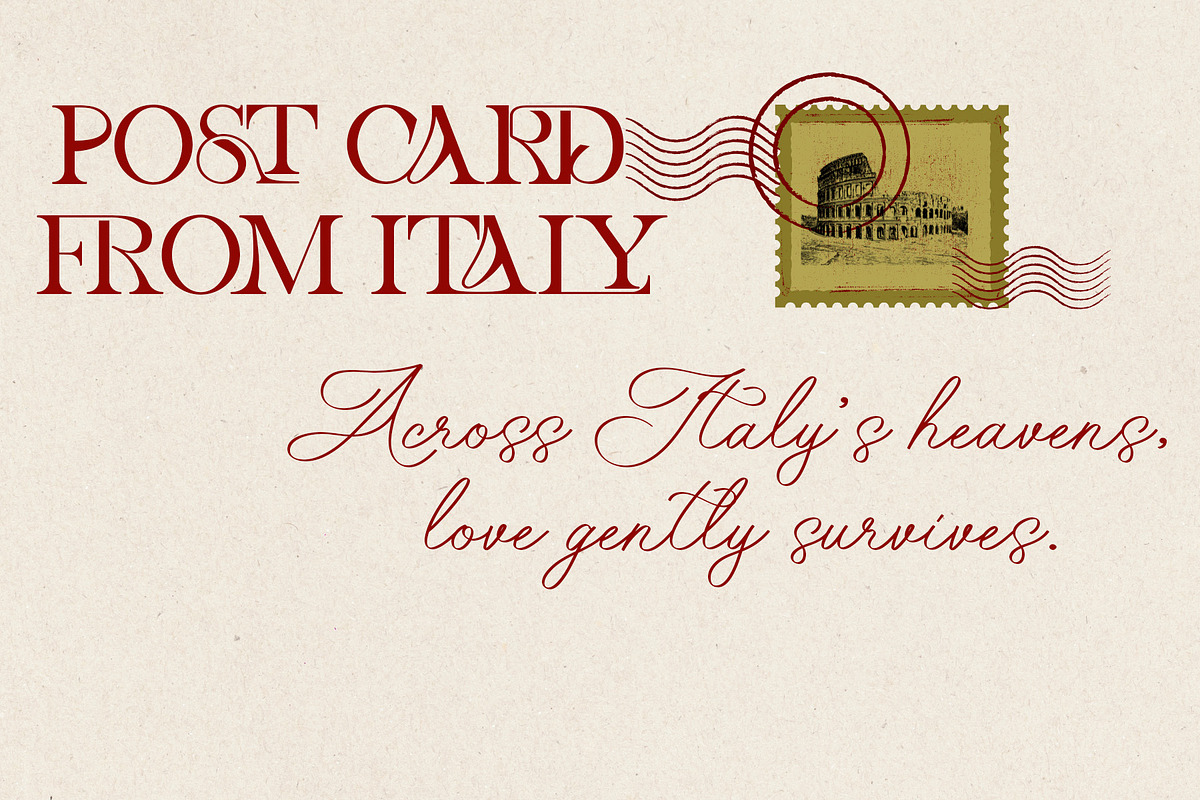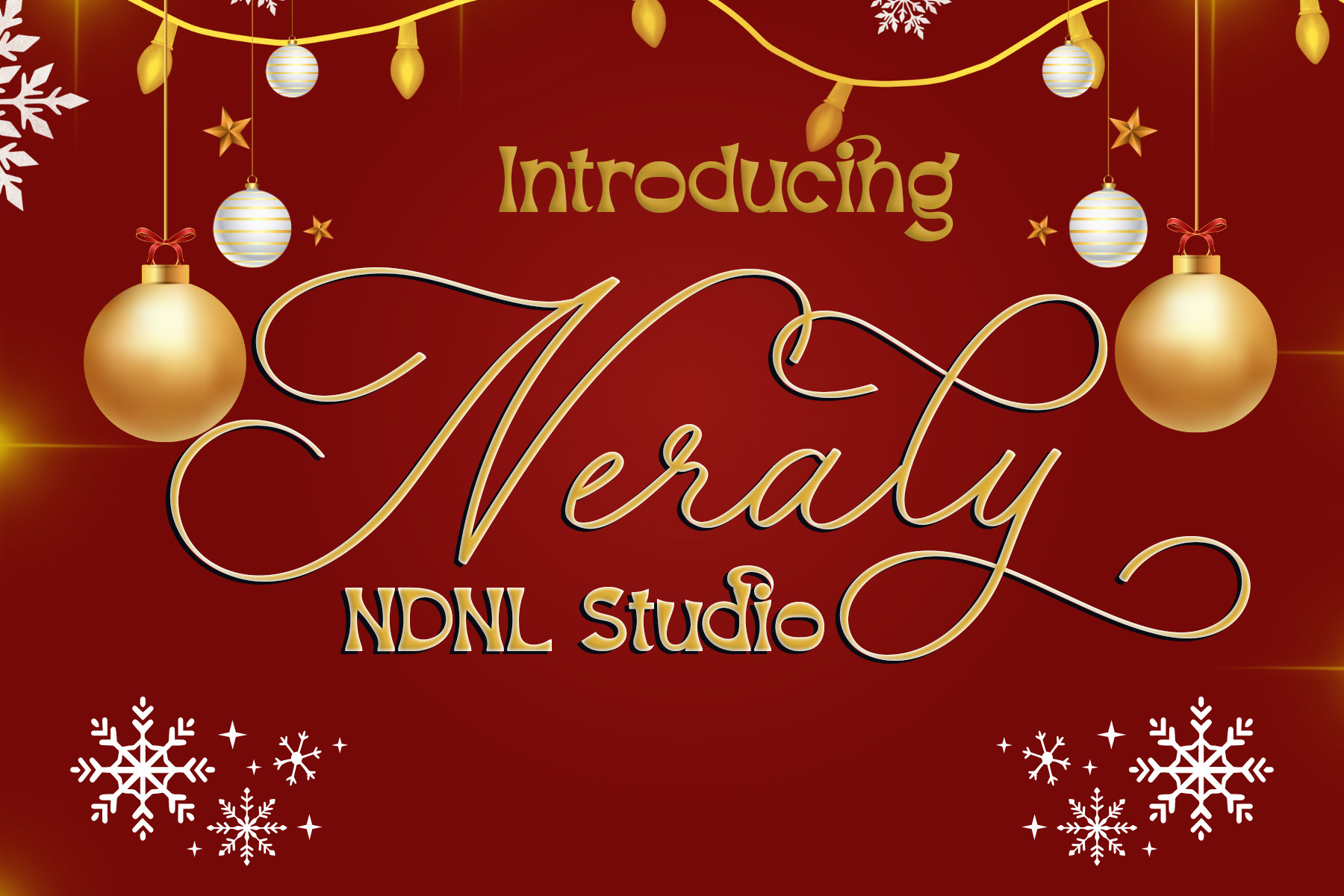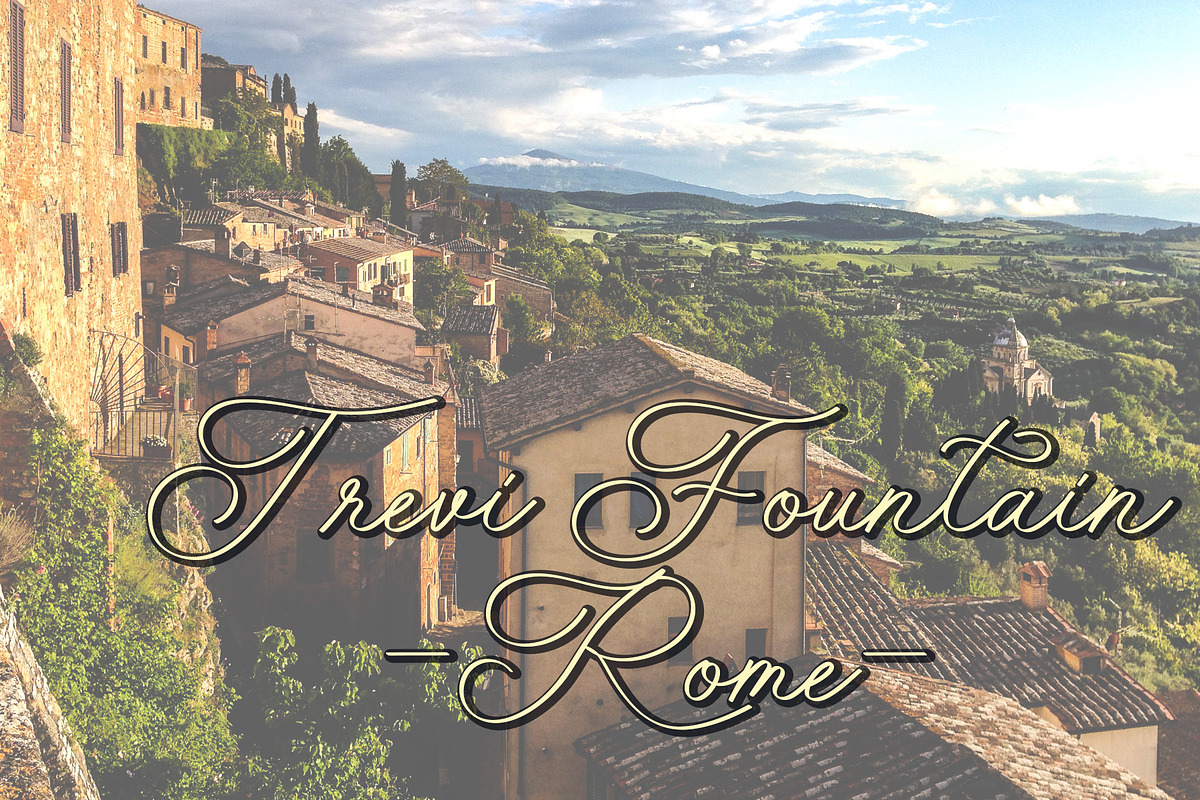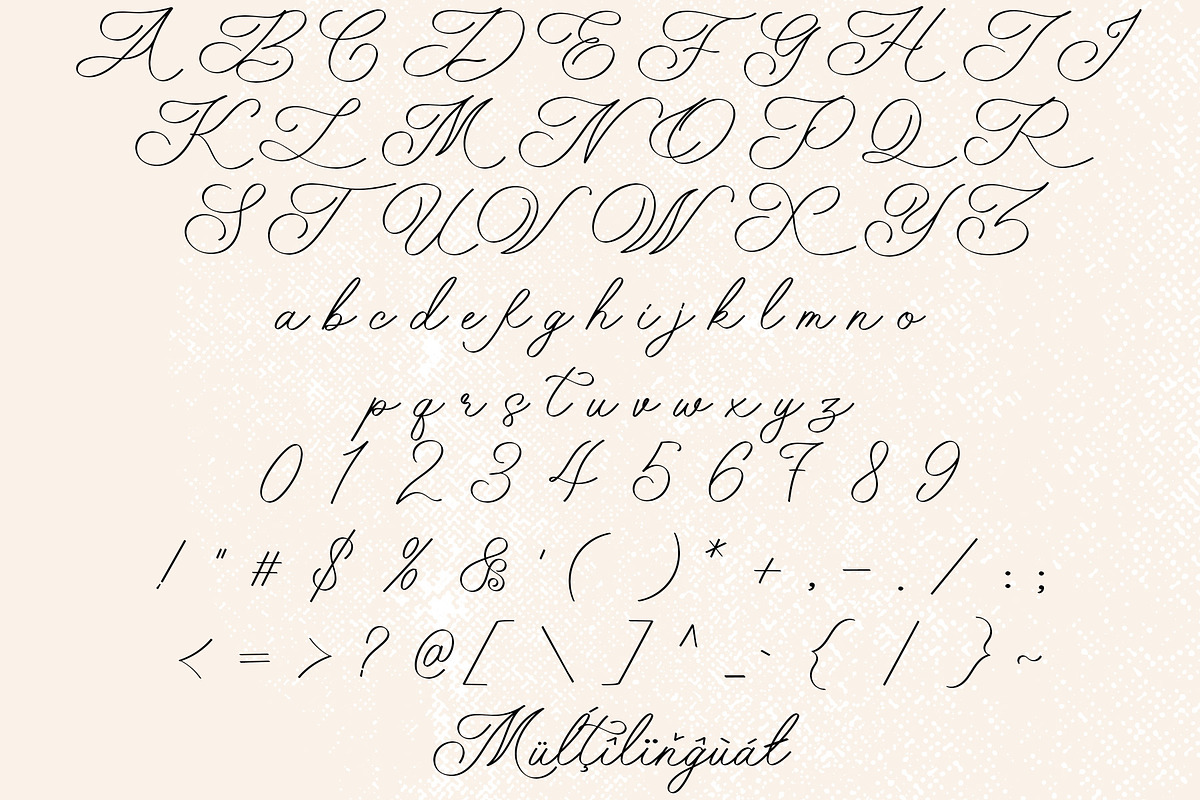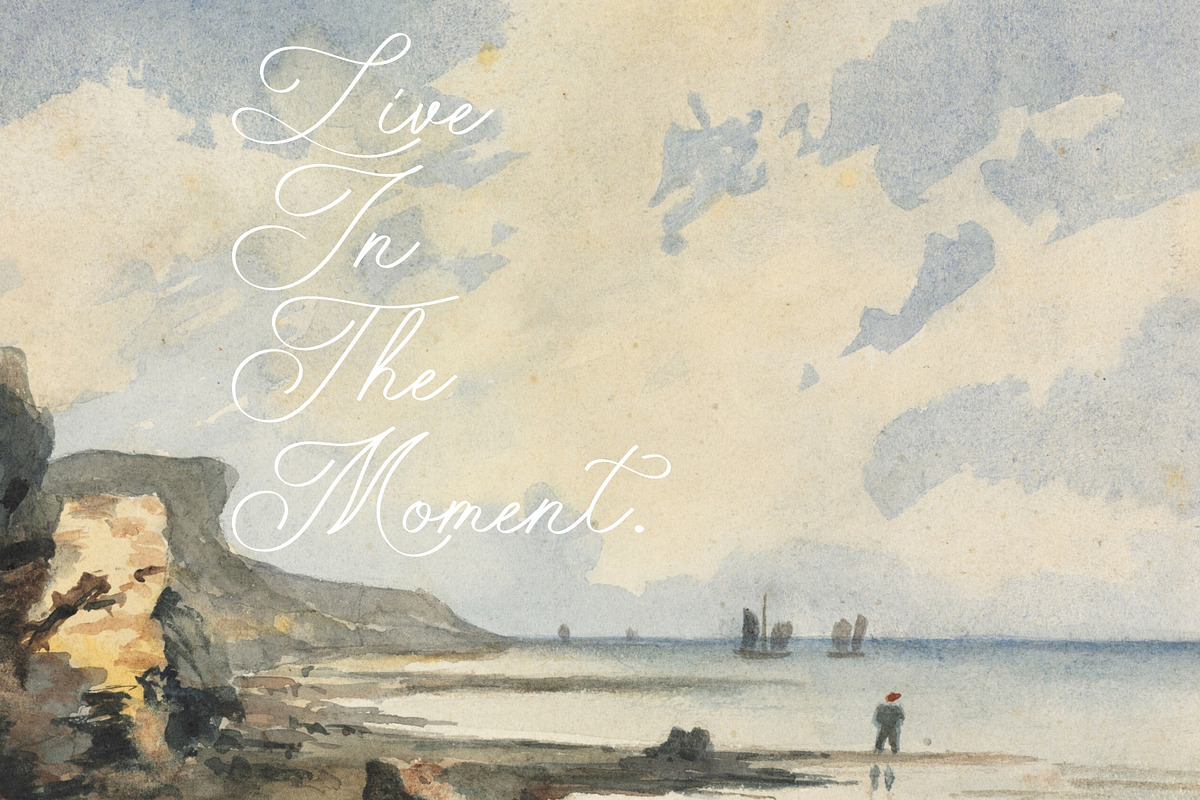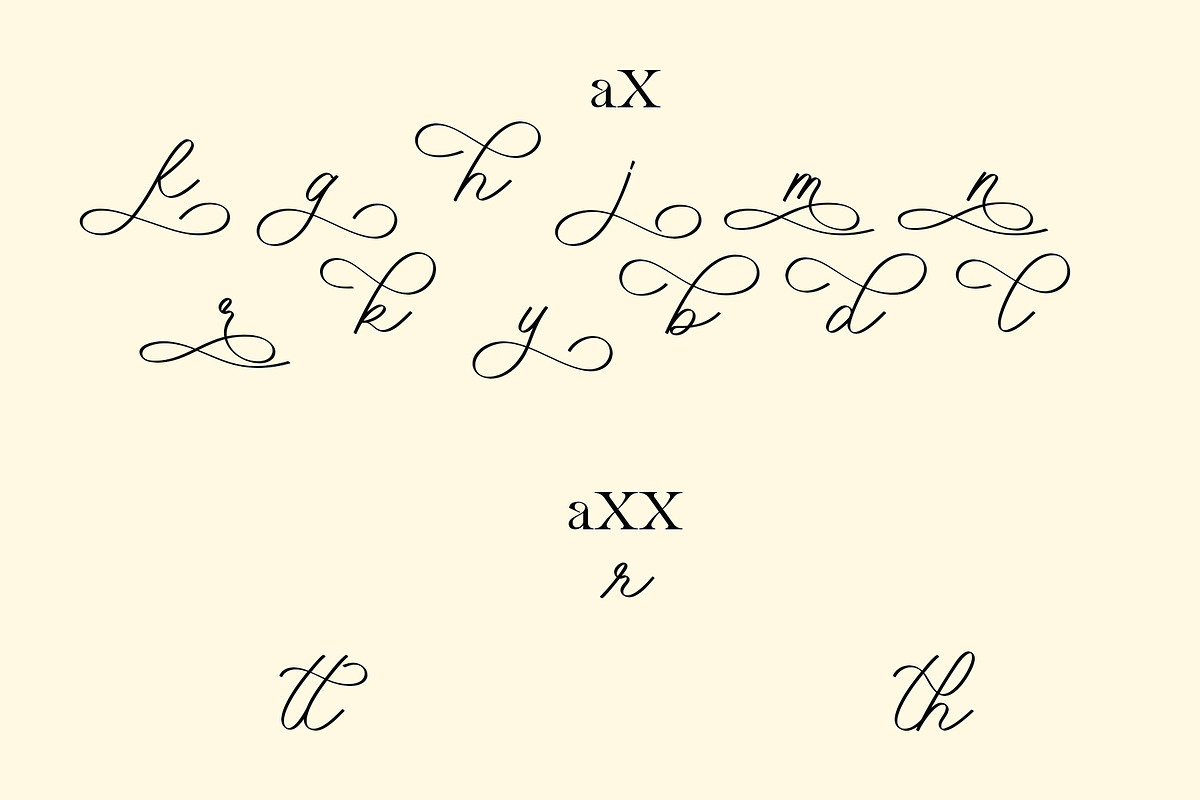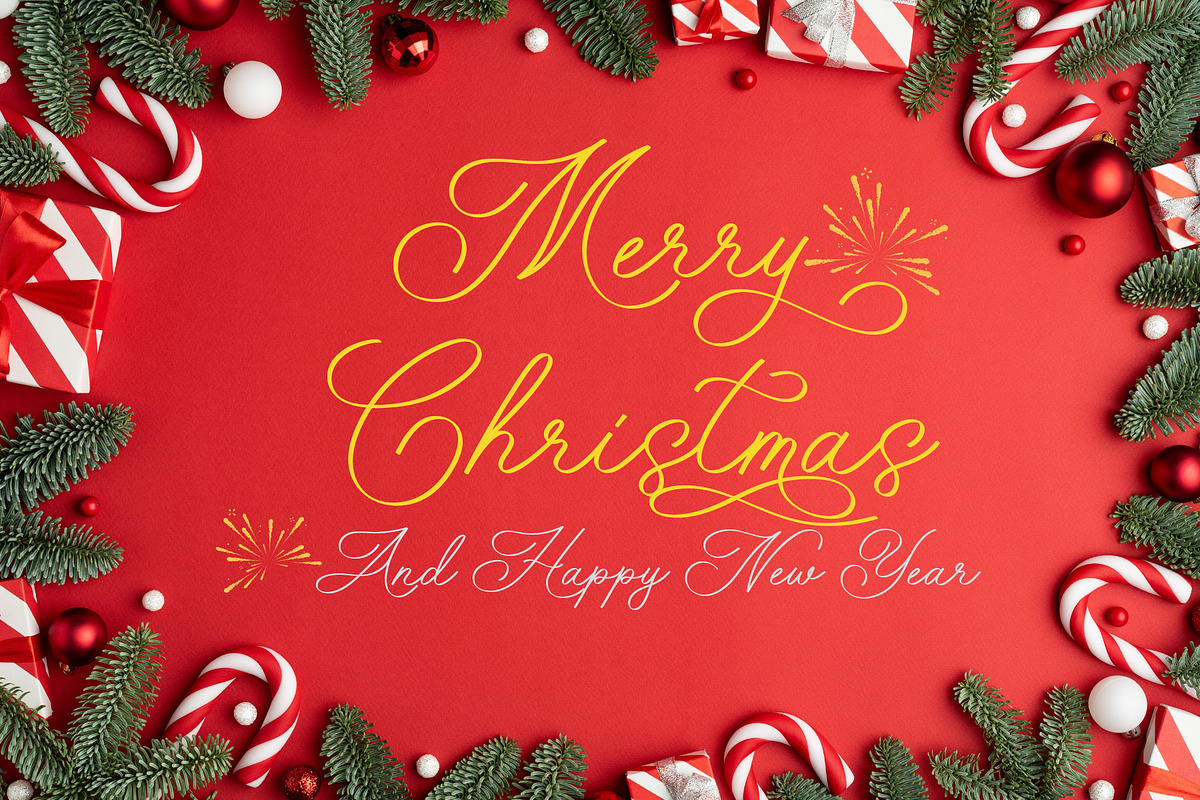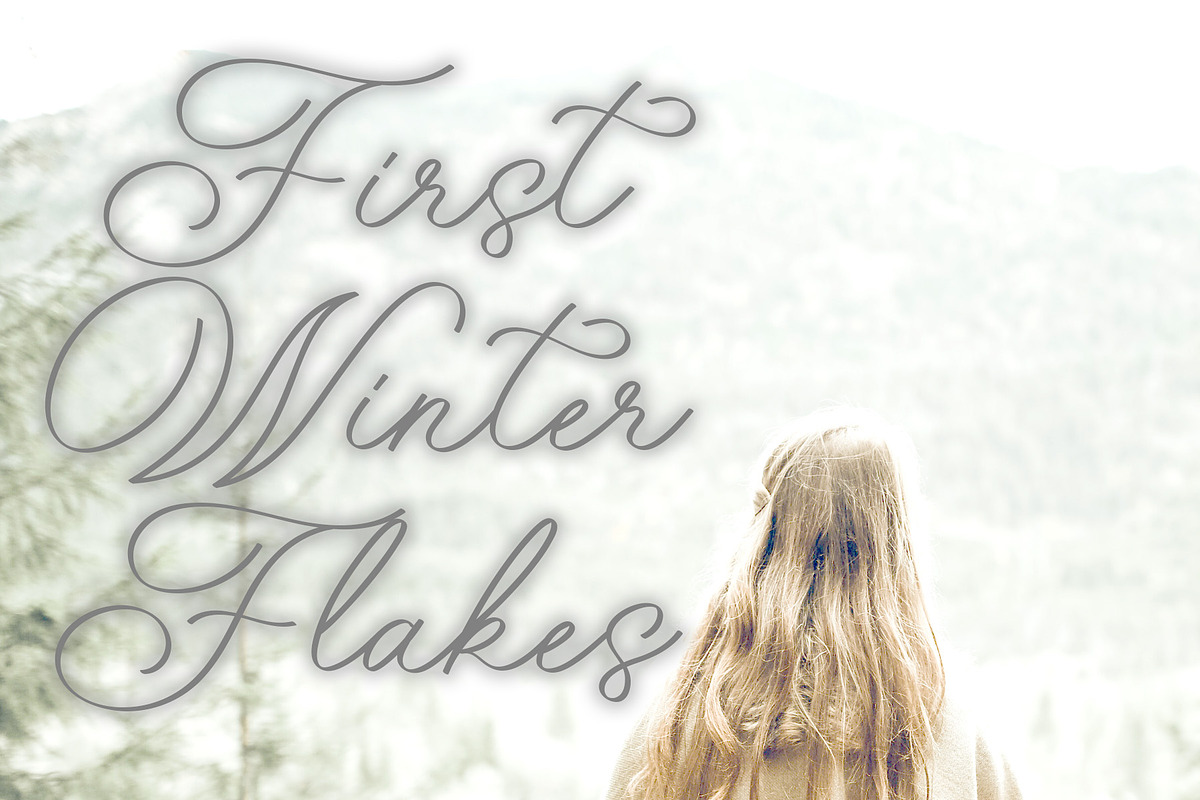
Neraly – Handwritten Font
Introducing Neraly!
Neraly Font is an elegant script typeface with graceful curves and artistic flow, infused with the warm and magical spirit of the holiday season. Inspired by Christmas lights and festive charm, Neraly brings a shimmering and luxurious touch to any design. It is perfect for Christmas invitations, holiday branding, winter-themed layouts, and creative projects that need refined sophistication.
If the software you are using does not fully support OpenType features (such as Stylistic Alternates), you can still access the decorative characters of the font using the following method:
Examples:
Axx → Decorative A (if available)
aX → Decorative a (if available)
And also:
AxX → Decorative A2 (if available)
aXX → Decorative a2 (if available)
aXXX → Decorative a3 (if available)
To separate ligatures: Insert the shortcut xXx between two characters.
- ab → axXxb → a b
Character set A-Z
Accented Characters (West Europe)